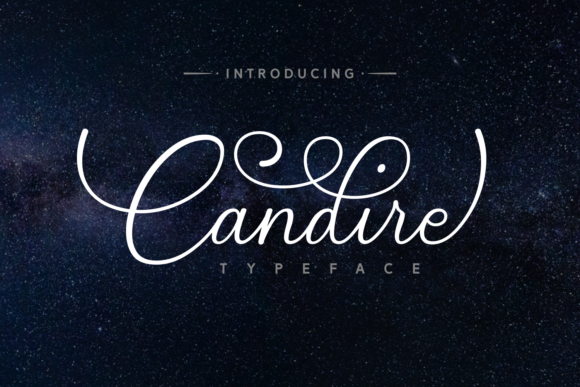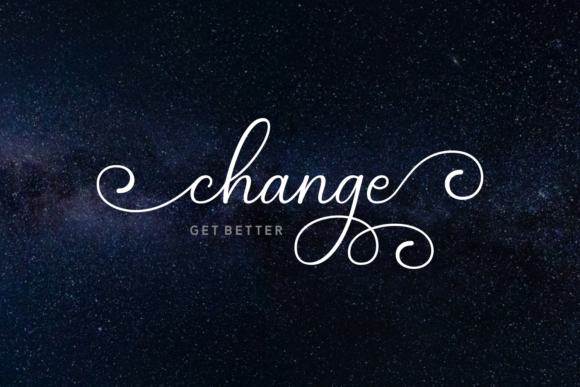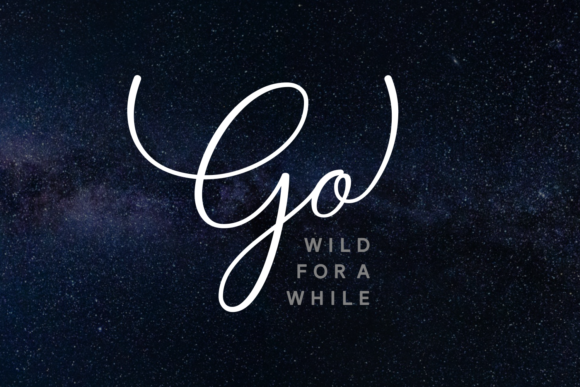
About Candire Font
Candire stands as a testament to the artistry of script fonts, meticulously crafted to lend a refined and elegant aura to your creative endeavors. This modern calligraphy font possesses a unique charm that transcends mere typographic elements, making it an ideal choice for headlines and a versatile addition to diverse styles and designs.
As you delve into the intricacies of Candire, you’ll discover its innate ability to adapt, transforming your work into a visual masterpiece. The graceful curves and intricate details of this font contribute to a sense of sophistication that goes beyond the ordinary. Whether your project calls for a touch of classic elegance or a more contemporary flair, Candire effortlessly rises to the occasion, becoming a versatile tool in the hands of any designer.
Picture this font gracefully adorning headlines, capturing the attention of your audience with its subtle yet powerful presence. The strokes of Candire exude a timeless quality that transcends trends, making it a font capable of enhancing the aesthetic appeal of a wide array of projects. Its adaptability becomes evident as it seamlessly integrates into different styles, ensuring a harmonious blend with your overall design vision.
What sets Candire apart is not just its visual appeal but also the emotion it evokes. The careful craftsmanship behind each letter creates a sense of artistry that resonates with those who appreciate the finer details. It’s more than a font; it’s a design companion that elevates your work, making a statement that goes beyond words.
Imagine the impact of Candire on invitations, branding materials, or any project where elegance is paramount. The font’s ability to convey a sense of sophistication makes it a go-to choice for those seeking a refined aesthetic. It’s a testament to the notion that well-chosen typography can elevate a design from good to exceptional.
In conclusion, Candire is not merely a script font; it’s a visual storyteller that breathes life into your creations. Its aesthetic versatility, adaptability, and timeless appeal make it a valuable asset for designers looking to make a lasting impression. With Candire, your work transcends the ordinary, leaving an indelible mark on those who experience its refined beauty.